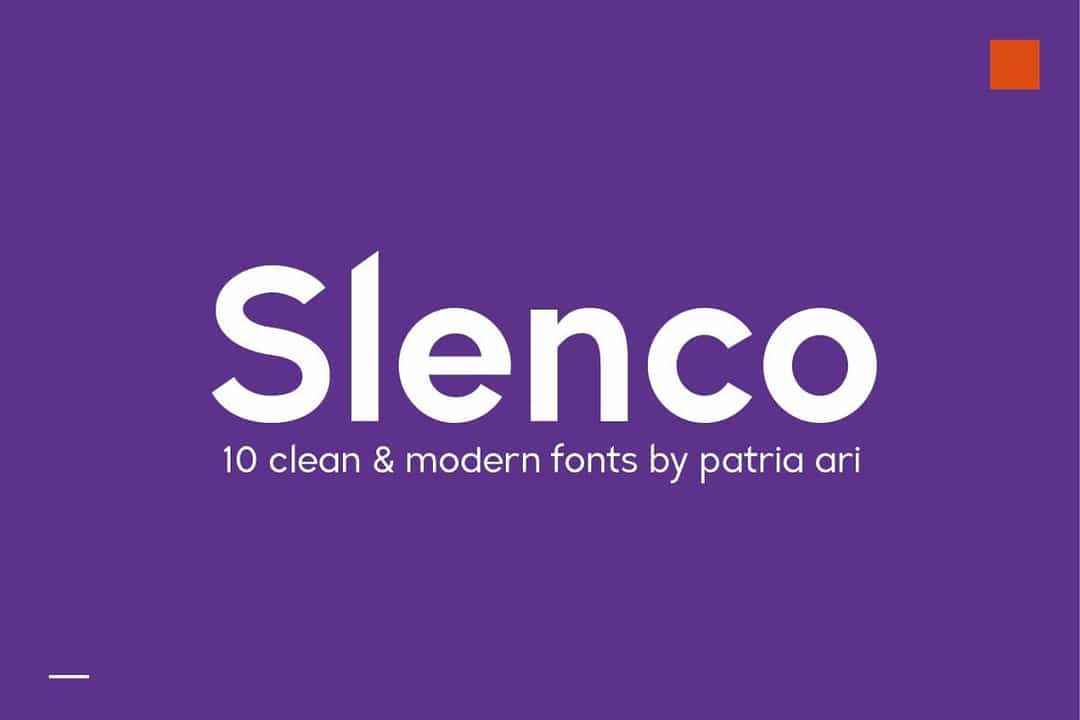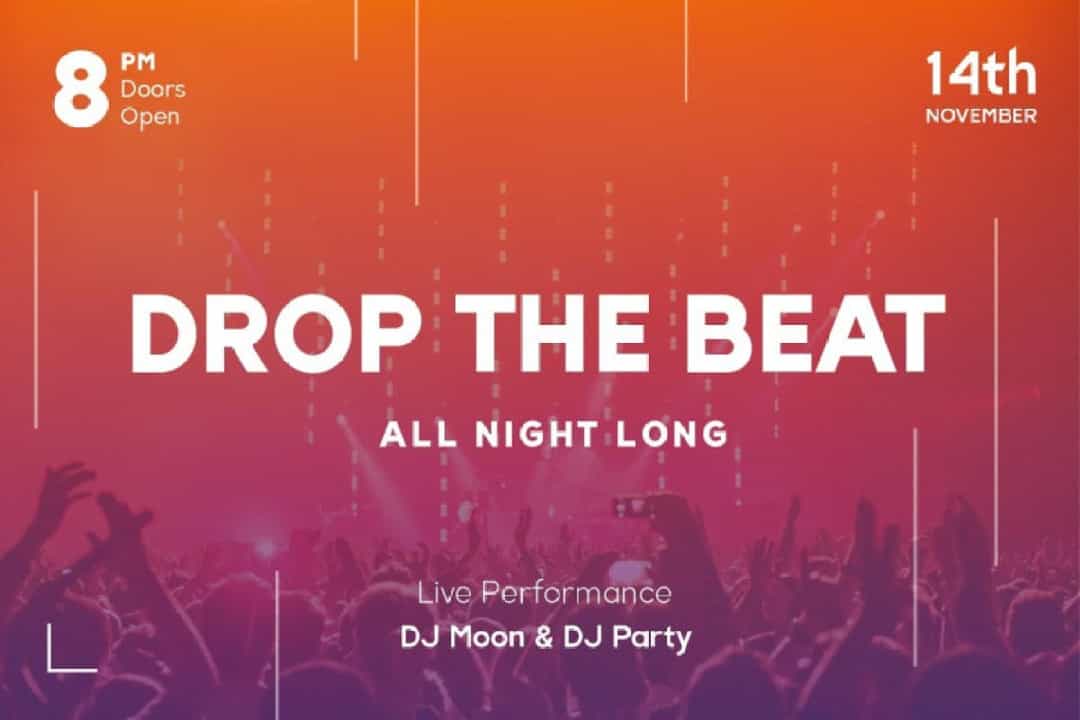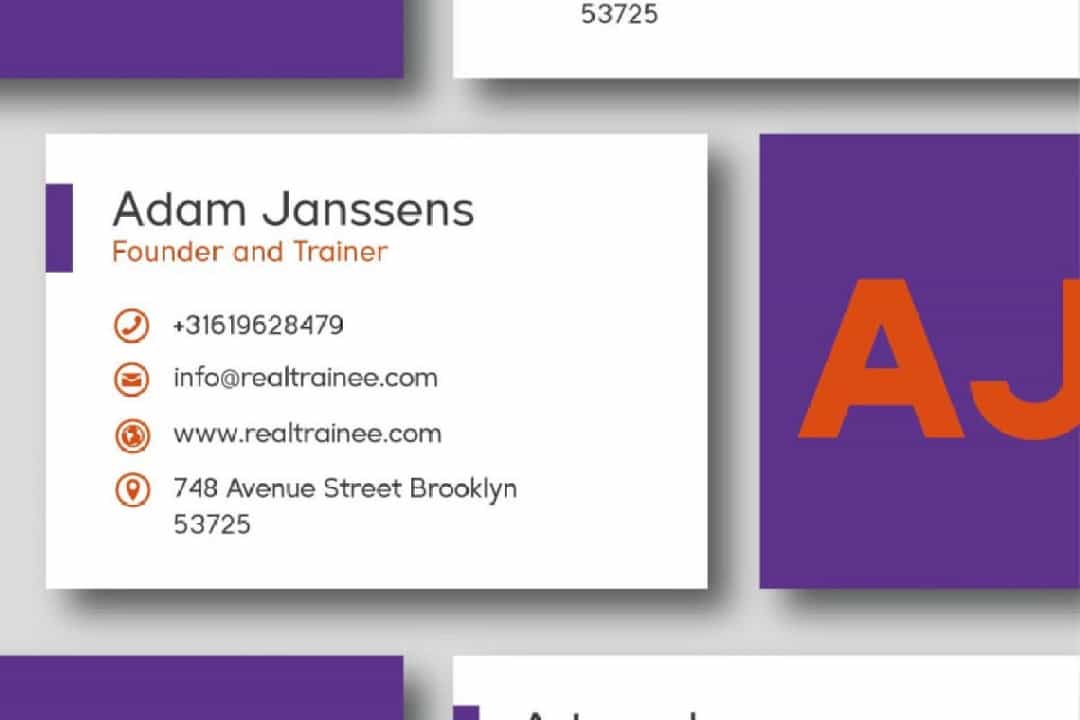
Slenco font was designed for the use in size of headlines as well as branding, editorial design packaging broadcast media web uses and many other. For the purpose of display and signage, each of the character is easily distinguishable with this font.